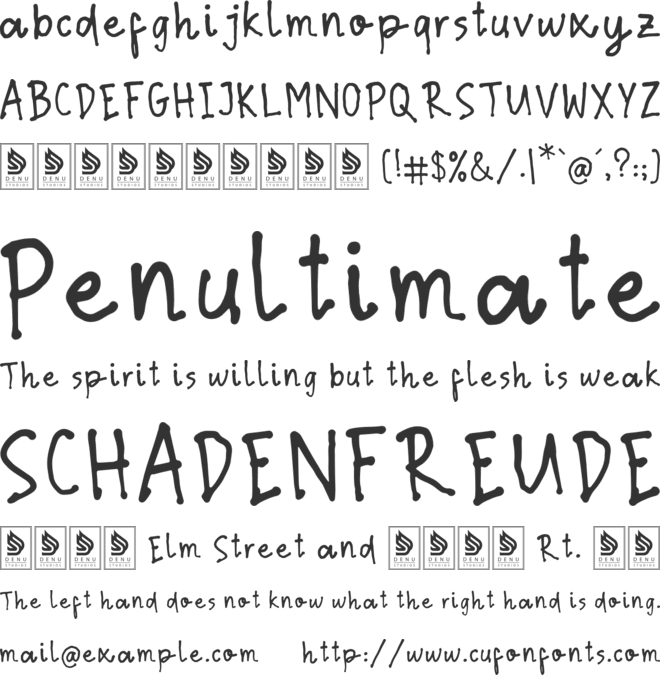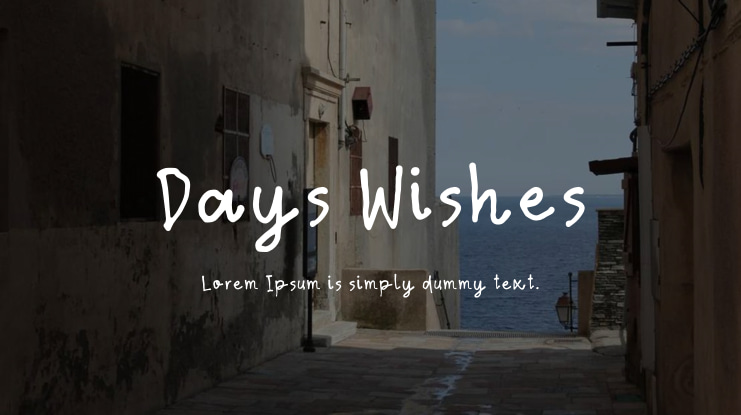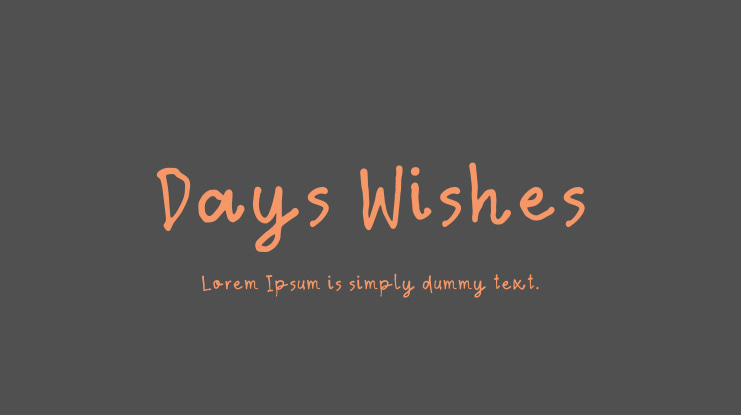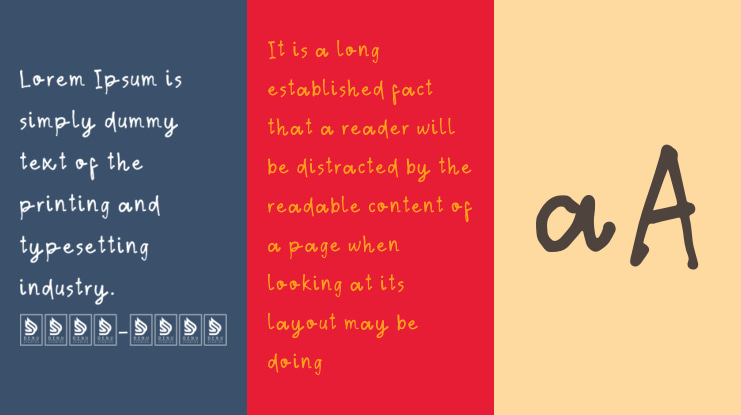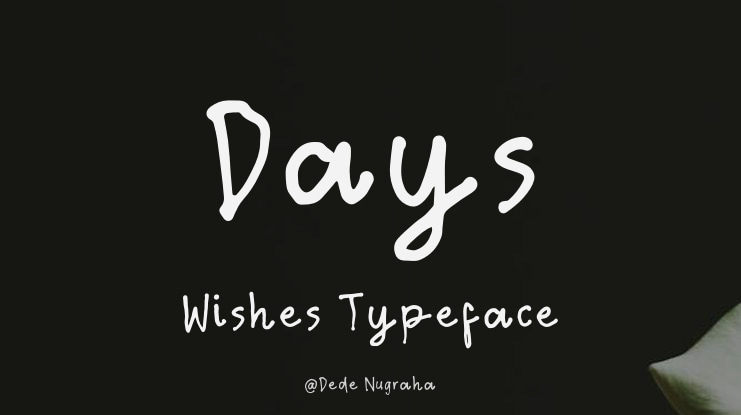
Days Wishes Font
Days Wishes | Hand Drawn Font is perfect for a wide range of projects such as: logos, branding, homeware designs, product packaging, mugs, quotes, posters, shopping bags, t-shirts, book covers, name cards, invitations, greeting cards, labels, photography, watermarks, special events, and any other creative projects needing a touch of hand-drawn style.